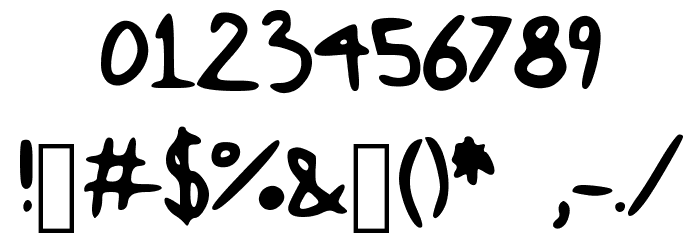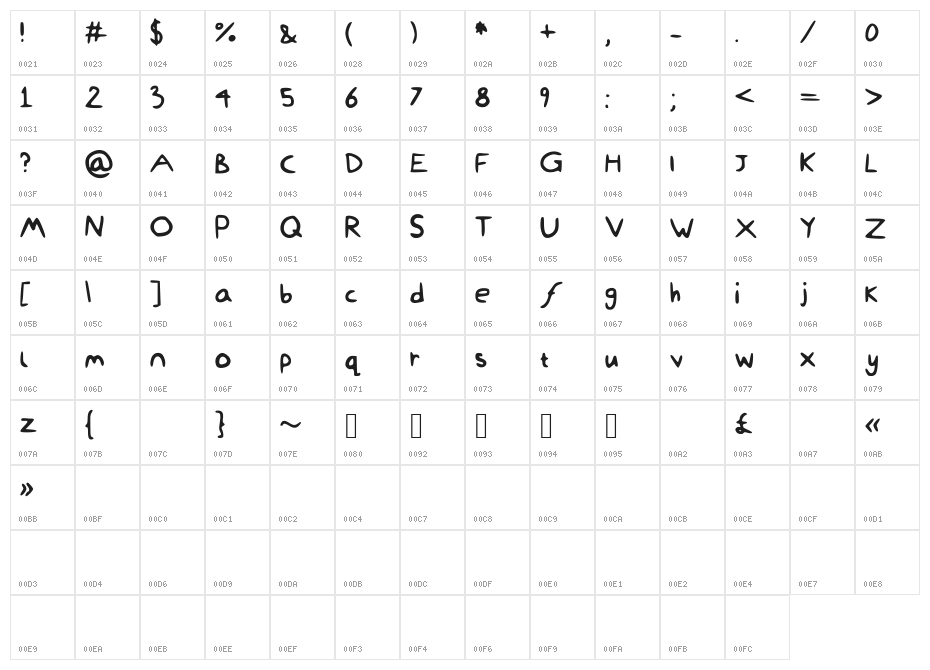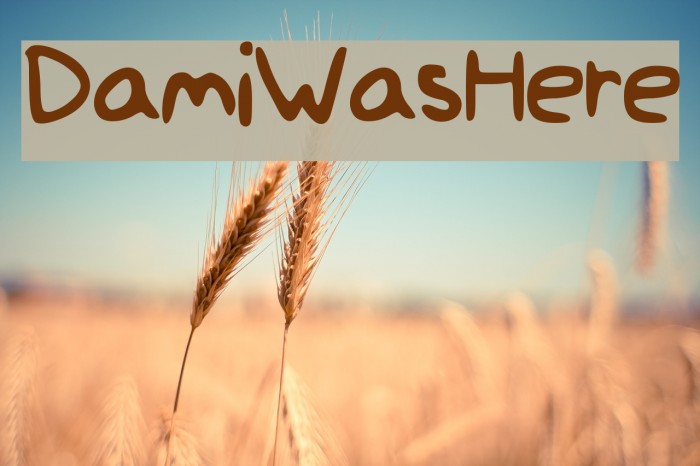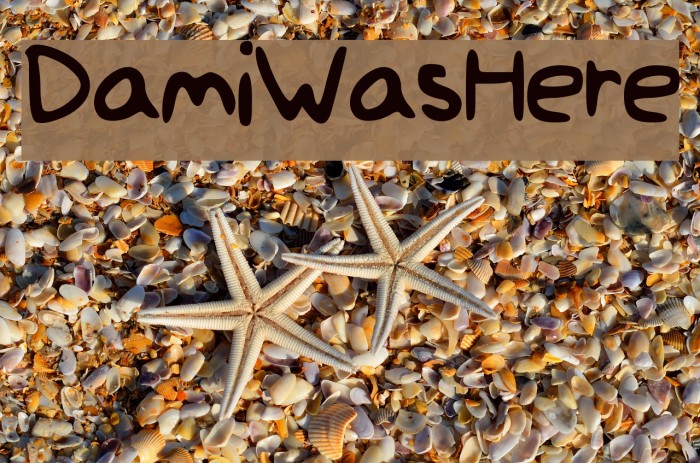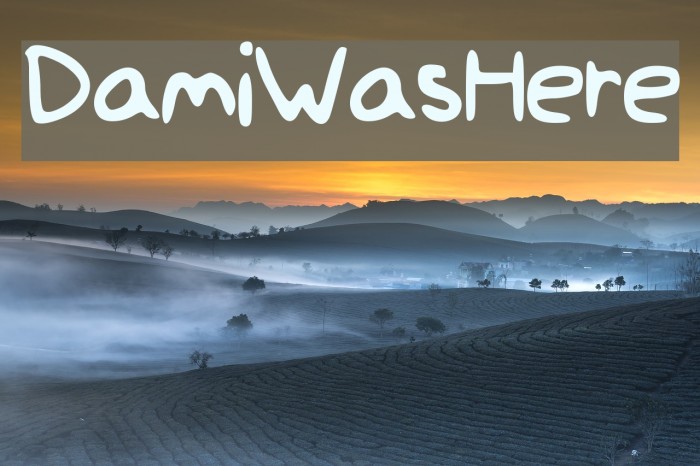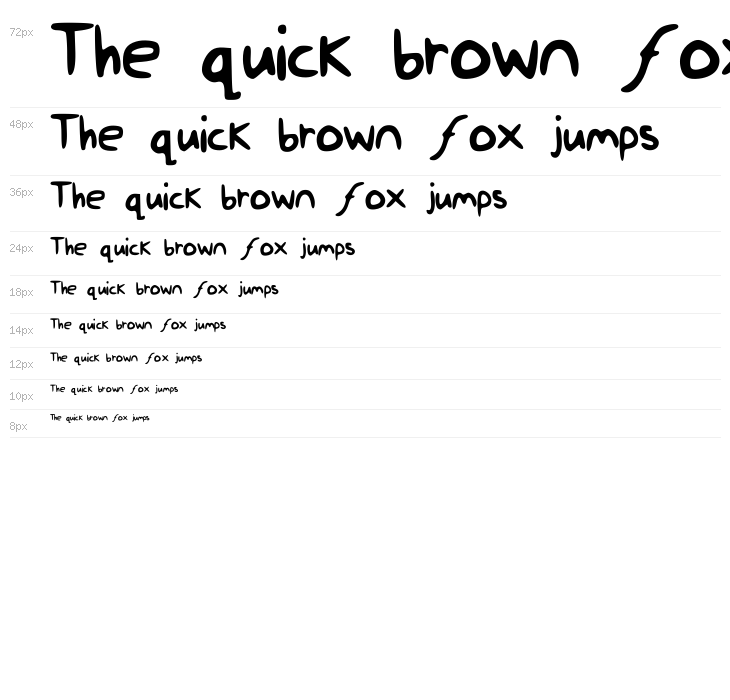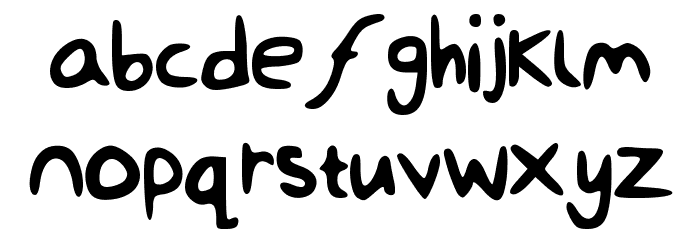
Dami_Was_Here Font
Dami_Was_Here Description
This playful and energetic font exudes a handwritten charm with its bold, rounded characters. Each letter is crafted with a casual, free-flowing style that mimics the natural movement of handwriting. The strokes are consistent in thickness, providing a uniform appearance while maintaining a lively and informal tone. The font's unique character is enhanced by its slightly irregular shapes and angles, giving it a personal and approachable feel. Its versatility makes it suitable for a variety of creative projects, where a touch of personality and warmth is desired.
| Proposed Projects | Ideal for greeting cards, children's books, casual branding, and social media graphics. |